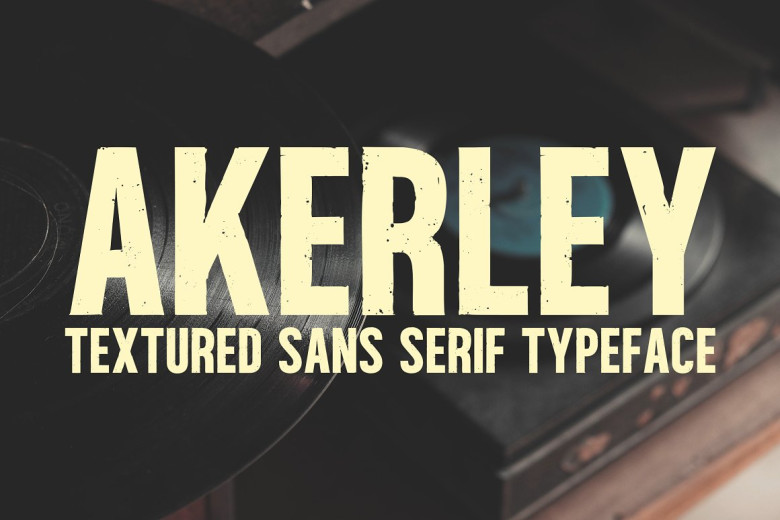
Akerley Font
Introducing Akerley is a vintage-inspired textured sans serif font that can perfect for clothes, labeling, titles and headlines. A flinty texture and good readability combine to make this a striking font with many uses in your creative projects.
Akerley font data has complete lettering with multilingual support So why not do your part to bring the timeless and neck-snappingly sensuous charm of Akerley’s big, bold style to a project these days?
Akerley Sans Serif Font